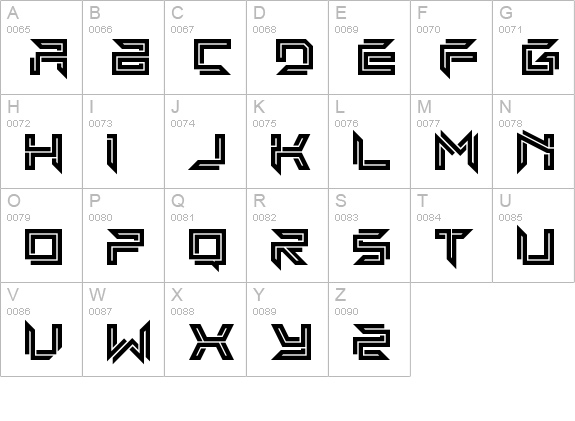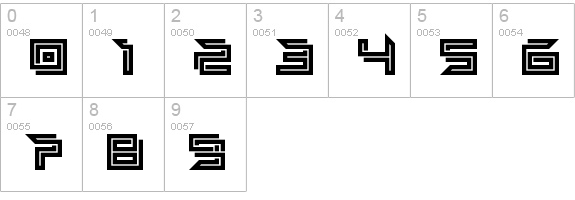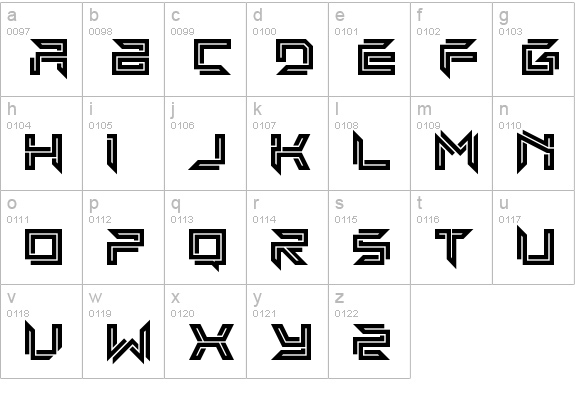
Imminent Line Font Details
Imminent Line is a free for personal use font in the Modern > Futuristic category, designed by EyeCone. It has been downloaded 1,160 times and is available for Windows, Mac and Linux.
Imminent Line font is a modern and sleek typeface that exudes sophistication and elegance. With its clean lines and sharp edges, this font is perfect for making a bold statement in any design project. Imminent Line strikes the perfect balance between professionalism and creativity, making it versatile for a wide range of applications.